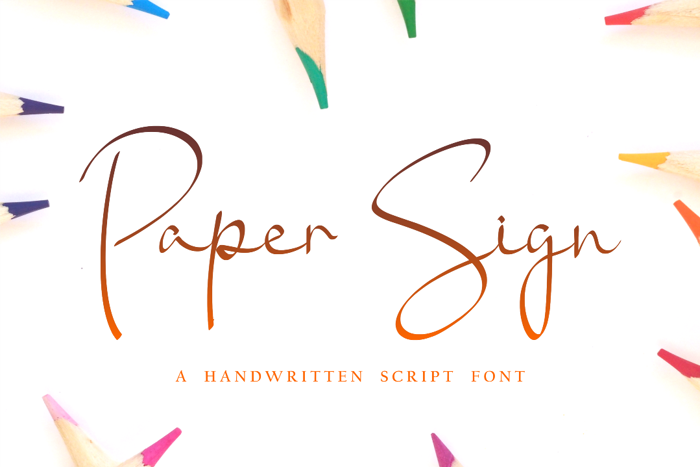
Paper Sign Font
Paper Sign is a new modern & fresh script with a handwritten and script style that makes this font looks elegant, natural, stylish, and perfect for any awesome projects that need handwriting taste.
Paper Sign would be perfect for photography, watermark, social media posts, advertisements, logos & branding, invitation, product designs, label, stationery, wedding designs, product packaging, special events, or anything that needs handwriting taste.